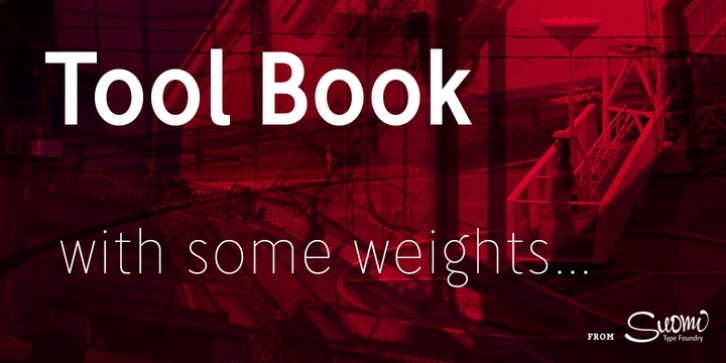
A classic, narrow and clean sans serif family with seven weights, Roman and Italic, all with Old Style Numerals and Small Caps, for both headlines and body text use.